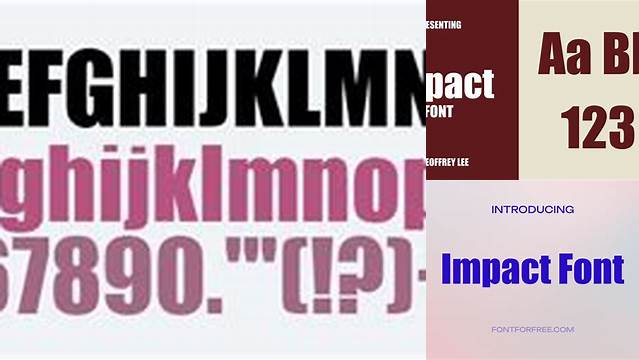
Impact BC Font: Free Download & Usage Guide
Are you looking to download Impact BC font for free? You've come to the right place, guys! In this article, we'll dive deep into the world of the Impact font family, exploring its origins, characteristics, and various uses. We'll also guide you through the process of safely downloading and installing this iconic typeface, ensuring you can start using it in your projects right away. So, buckle up and get ready to unleash the power of typography with Impact BC!
What is Impact BC Font?
Let's kick things off by understanding what makes Impact BC such a powerful and popular font. Impact is a sans-serif typeface designed by Geoffrey Lee in 1965 and released by Stephenson Blake. Its defining features include its thick, compressed letterforms and its high x-height, which gives it a bold and impactful appearance. This font was specifically created to grab attention, making it perfect for headlines, posters, and other display purposes. The 'BC' in Impact BC simply refers to a specific version or release of the font, maintaining the core characteristics of the original Impact typeface. You'll often find Impact used in memes, advertising, and anywhere else where a strong visual statement is needed. Think about those classic meme templates – Impact is often the font of choice! Its condensed design allows for more text to fit into a smaller space, making it incredibly versatile for various design applications. But it's not just about memes; Impact's robust structure makes it suitable for a range of projects, from website headers to print materials. The font's ability to command attention stems from its purposeful design, a design crafted to convey urgency and importance. This inherent boldness is what separates Impact from more subtle typefaces, positioning it as a go-to choice for designers needing to make a statement. When we talk about the impact of typography, Impact BC truly lives up to its name, leaving a lasting impression on the viewer. The font's visual weight is undeniable, contributing to its widespread use across different media. Whether it's a digital banner or a printed flyer, Impact BC ensures your message is seen and heard. So, if you're aiming for a design that speaks volumes, understanding the essence of Impact BC is the first step towards achieving that goal. The font's legacy is a testament to its effectiveness, proving that a well-designed typeface can truly stand the test of time. In essence, Impact BC is more than just a font; it's a design tool that empowers you to communicate with boldness and clarity. Its distinctive style is instantly recognizable, making it a valuable asset in any designer's toolkit. So, let's delve deeper into its characteristics and discover how you can make the most of this incredible typeface.
Key Characteristics of the Impact Font Family
Now, let's zoom in on the key characteristics that make the Impact font family stand out from the crowd. We're talking about a font with serious personality! First and foremost, its boldness is undeniable. The thick strokes and condensed letterforms give it a weighty presence, demanding attention wherever it's used. This makes it ideal for headlines and titles where you need to make a statement. The high x-height, which refers to the height of the lowercase letters relative to the uppercase letters, also contributes to its legibility and impact. This feature ensures that even at smaller sizes, the text remains clear and readable, a crucial aspect for any font intended for broad use. Another significant aspect of Impact is its legibility. Despite its condensed nature, the font maintains a high level of readability, making it suitable for both print and digital media. This balance between boldness and clarity is what makes Impact such a versatile choice for designers. The font’s inherent simplicity is another characteristic worth noting. It’s a no-frills, sans-serif typeface, meaning it lacks the decorative strokes (serifs) found in fonts like Times New Roman. This simplicity lends Impact a modern and clean look, making it a popular choice for contemporary designs. The uniformity of the strokes also contributes to its clean appearance, providing a sense of balance and harmony. Each letter is meticulously crafted to maintain consistency, ensuring a cohesive and professional look. Moreover, the vertical stress of the letters adds to the font's commanding presence. This means that the thicker parts of the letters are primarily oriented vertically, enhancing the font's bold and upright character. This vertical emphasis contributes to the font's overall impact, making it a standout choice for headlines and titles. The limited character set of the original Impact font is also a notable characteristic. While modern versions may include additional characters and glyphs, the core set remains relatively concise. This limitation can be seen as a design choice, focusing on the essential elements needed for impactful messaging. It encourages designers to be creative within constraints, often leading to innovative typographic solutions. The Impact font family also boasts excellent scalability. Whether you're working on a billboard or a business card, Impact maintains its clarity and impact across a wide range of sizes. This scalability is essential for any font intended for diverse applications, ensuring consistency and readability in various contexts. In summary, the Impact font family's key characteristics—boldness, legibility, simplicity, uniform strokes, vertical stress, a concise character set, and excellent scalability—combine to make it a powerhouse of typography. Understanding these features will help you leverage Impact's potential to create designs that truly stand out. So, let's move on to exploring the different uses of this iconic typeface.
Popular Uses of Impact BC Font
Okay, guys, let's talk about where you'll typically see Impact BC font flexing its muscles! This font is a workhorse in the design world, popping up in all sorts of places. Its bold, attention-grabbing nature makes it a go-to choice for headlines and titles. Think about magazine covers, posters, and website headers – Impact is often the star of the show. Its ability to command attention ensures that your message is seen and remembered, making it perfect for conveying important information quickly and effectively. Beyond headlines, Impact is also hugely popular in advertising. Its strong visual presence helps brands make a lasting impression on potential customers. Whether it's in print ads, billboards, or digital banners, Impact’s assertive style cuts through the noise, helping your message stand out from the competition. The font’s legibility is a major asset in advertising, ensuring that your message is clear and concise even at a glance. This is crucial in a fast-paced advertising environment where you only have a few seconds to capture someone's attention. Another area where Impact reigns supreme is in the world of memes. You know those classic internet memes with white text overlaid on an image? Chances are, that text is Impact. Its straightforward, no-nonsense style is perfect for delivering humorous messages, and its widespread use has made it synonymous with meme culture. The font’s simplicity also contributes to its meme-worthiness. It's easy to read, even when superimposed on busy images, and its bold appearance ensures that the text remains visible and impactful. Moving beyond the digital realm, Impact is also commonly used in posters and signage. Its bold letters are easily readable from a distance, making it ideal for conveying information in public spaces. Think about event posters, promotional signs, and even safety notices – Impact's strong presence ensures that the message is seen and understood. In the realm of branding, Impact can be a powerful tool for creating a strong visual identity. Its boldness can convey confidence and authority, making it a good choice for brands that want to project a sense of strength and reliability. However, it's important to use Impact judiciously in branding, as its assertive style may not be suitable for all types of businesses. Impact is also frequently used in social media graphics. Its attention-grabbing nature makes it perfect for creating eye-catching visuals that stand out in a crowded feed. Whether it's for promotional posts, announcements, or simply sharing content, Impact helps your message get noticed. The versatility of Impact makes it a great choice for social media, where content needs to be both visually appealing and easily digestible. Overall, the popular uses of Impact BC font are a testament to its effectiveness and adaptability. From headlines to memes, advertising to branding, this font has proven its worth time and again. Understanding its strengths and how it's commonly used can help you make the most of Impact in your own design projects. So, let's dive into where you can find Impact BC font for free.